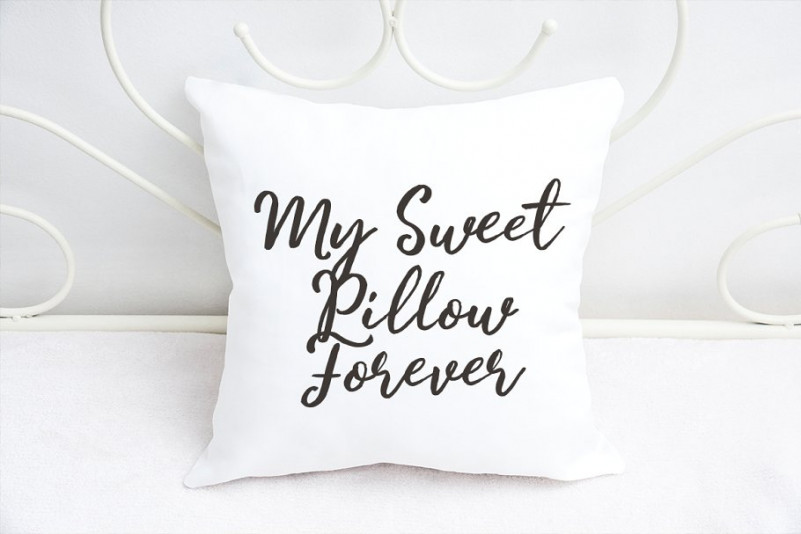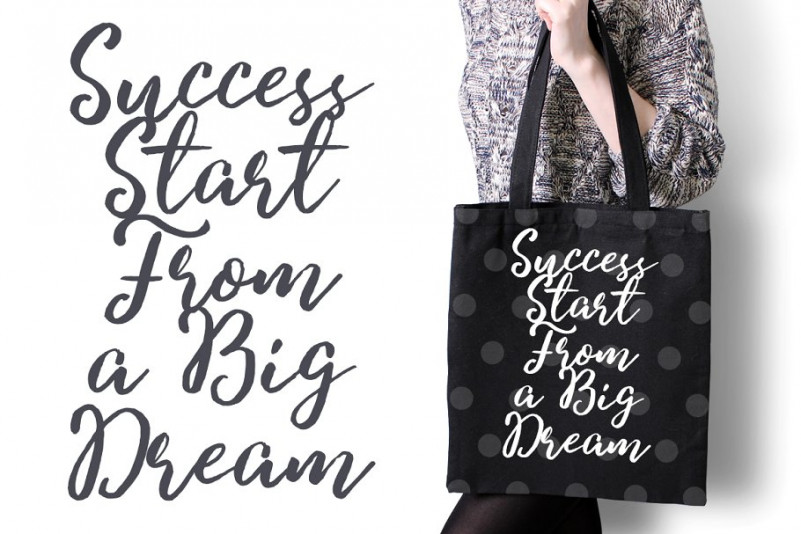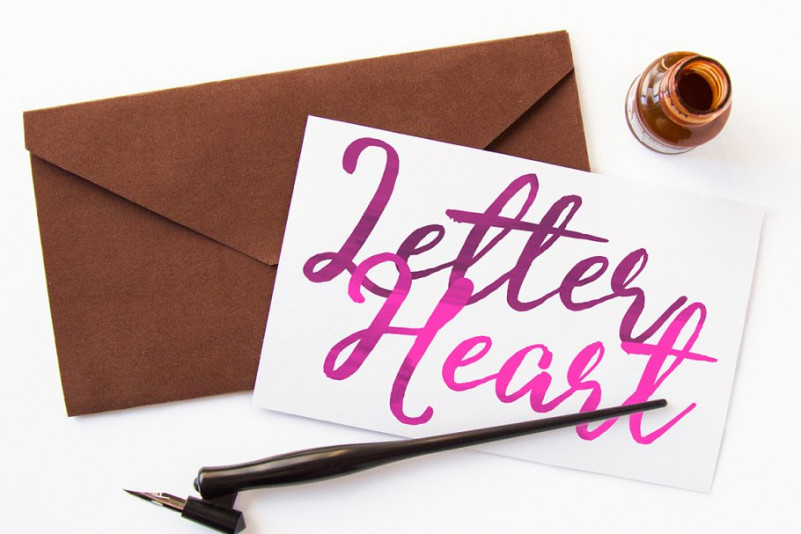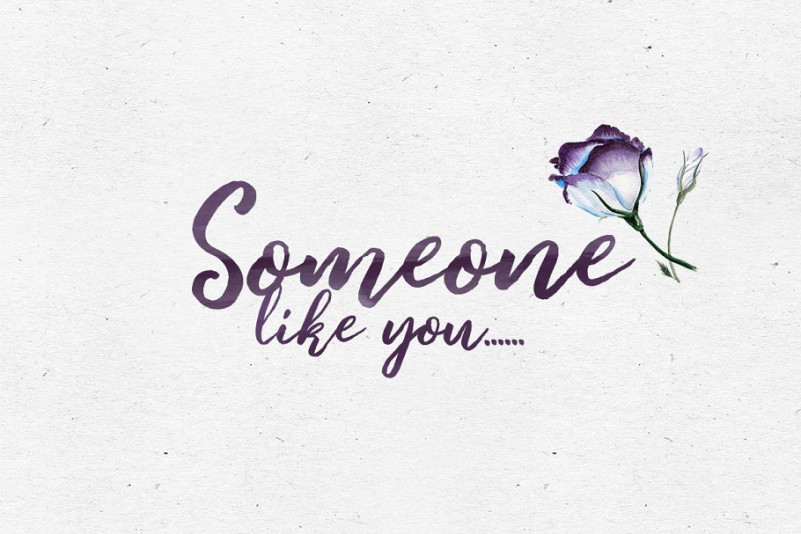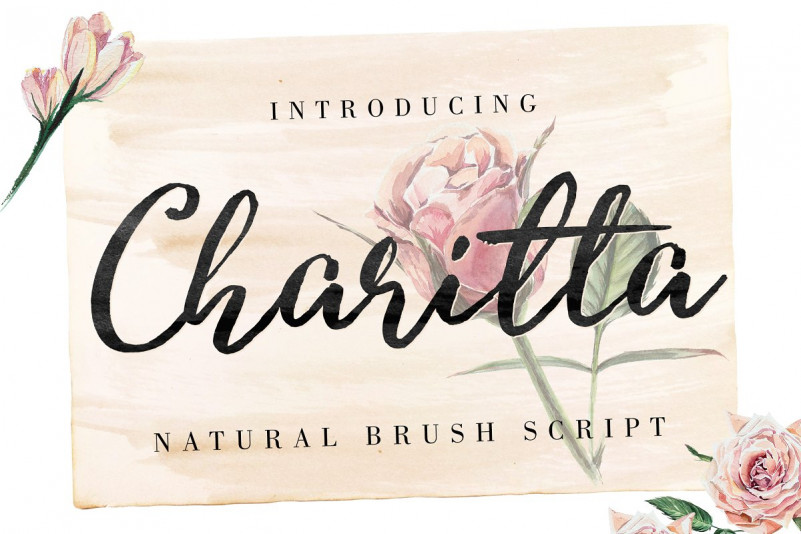
Charitta Organic Script Font
Charitta Organic Script Demo Font
Hello Guys! This is a new brush font by Lettersiro. Introducing Charitta Brush Font. Charitta Organic Script Font is organic font, made using brush pen. This is a dry brush font. It allows you to create stunning and easy hand-lettering in an instant. Came out with lowercase as uppercase alternate. Ideal for the logo, quotes, product label/packaging, fashion, letter, advertising, poster, merchandise, apparel, etc